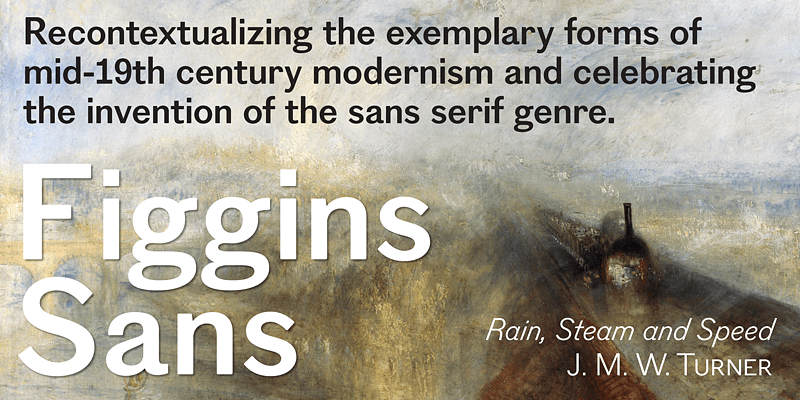
Figgins Sans Font Free Download is a bold and characterful sans-serif typeface rooted in 19th-century British typography. With its sharp edges, confident curves, and vintage personality, this font is perfect for poster designs, editorial headlines, retro-inspired branding, and impactful advertising. It delivers a strong, historical voice while remaining clean and contemporary.
Unlike many modern sans-serifs, Figgins Sans embraces a touch of eccentricity and charm. Its slightly condensed proportions and distinctive terminals make it stand out without being overwhelming. Whether you're aiming for a nostalgic vibe or a unique visual identity, this font brings versatility and flair to your design toolkit.